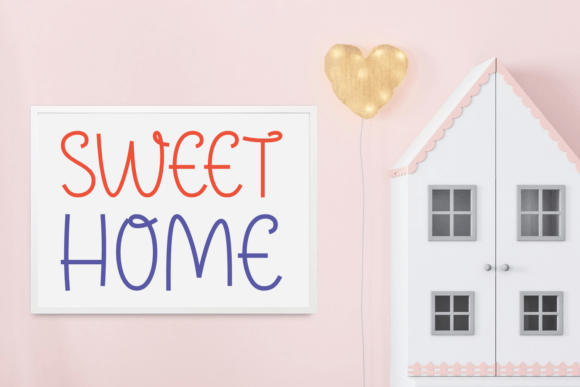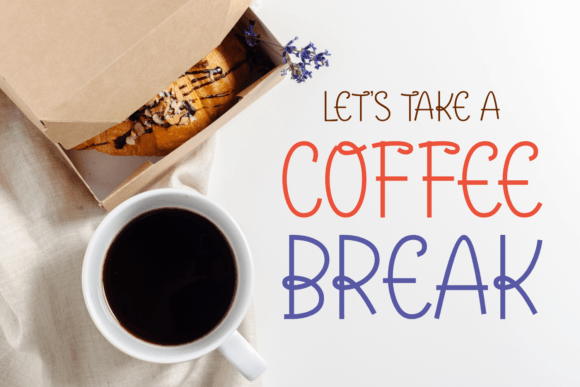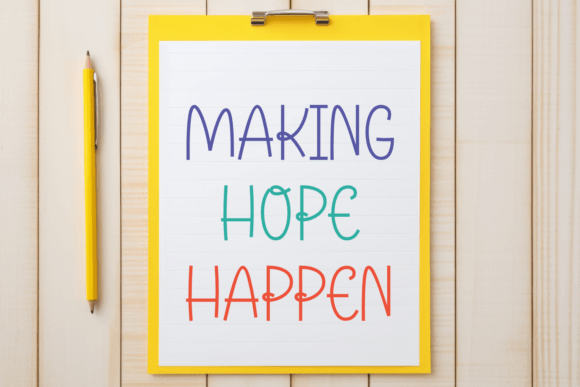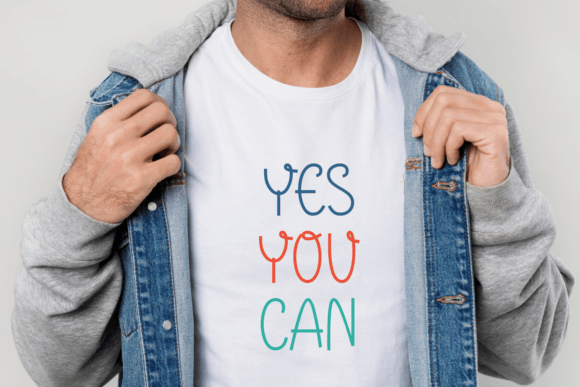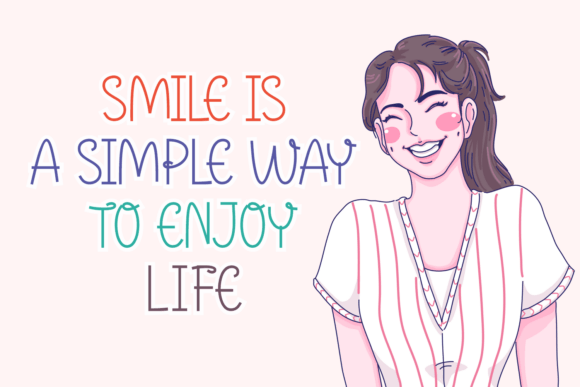
Introduction to Raise Hands Font
Raise Hands is a casual, handwritten font that exudes warmth and personality.
Its smooth, flowing strokes and slightly playful design make it perfect for invitations, journals, quotes, and branding Ideal for adding a personal touch, it combines elegance with approachability.